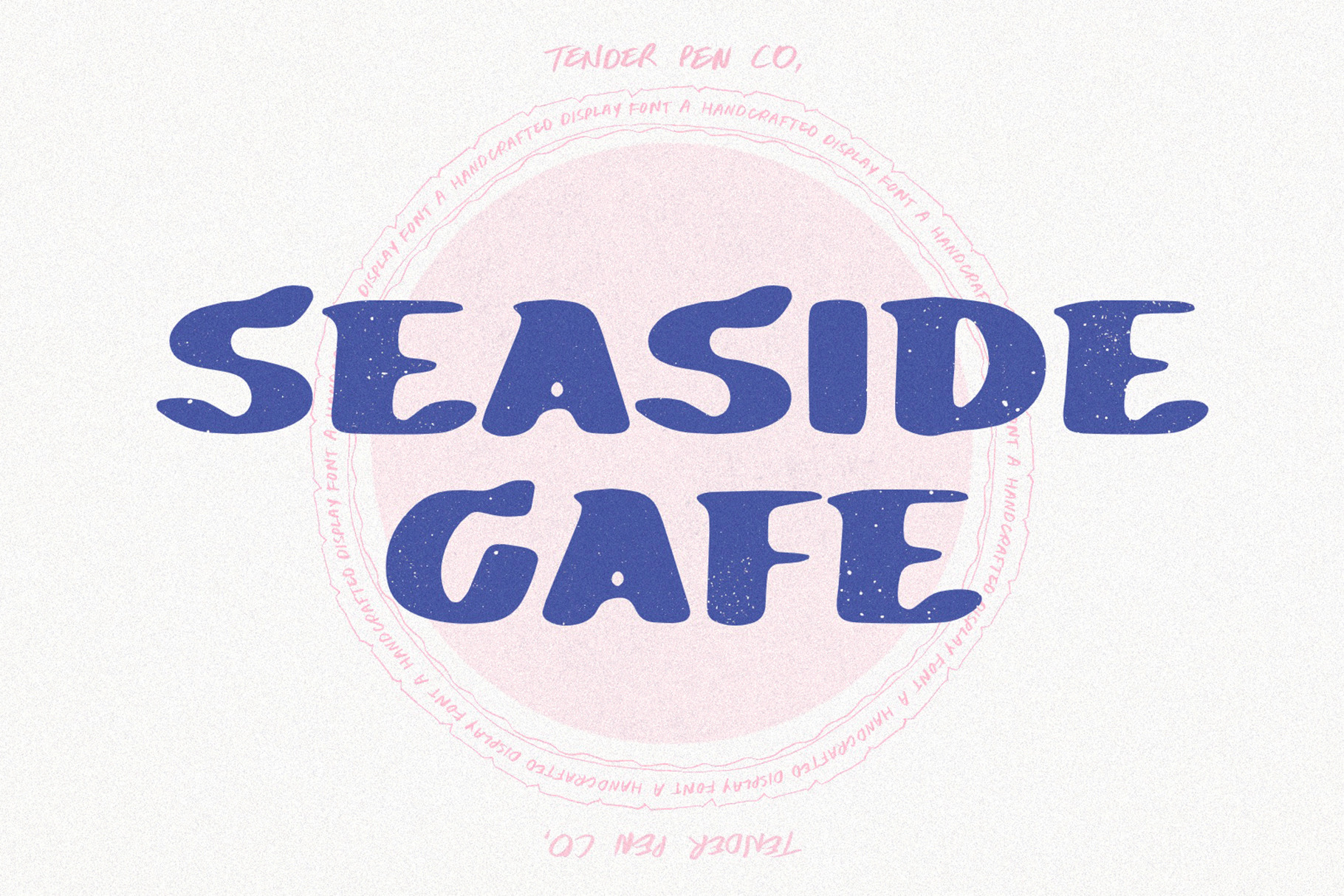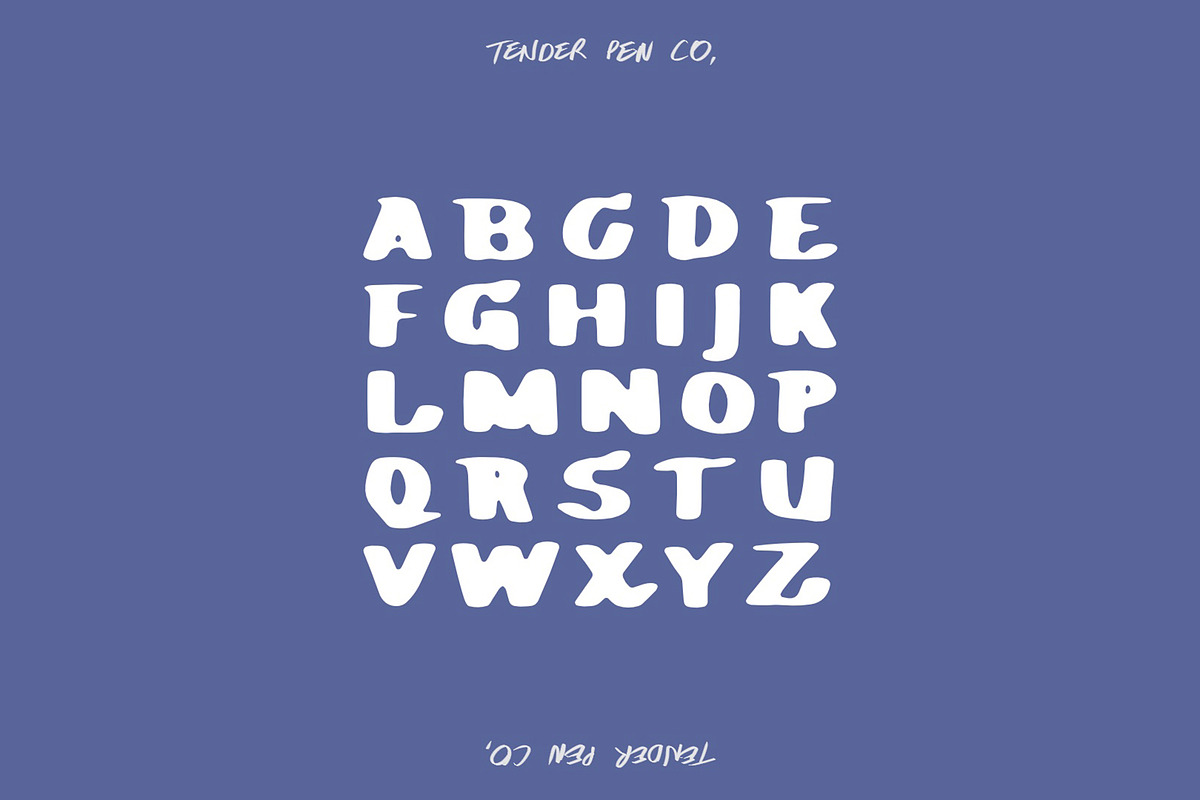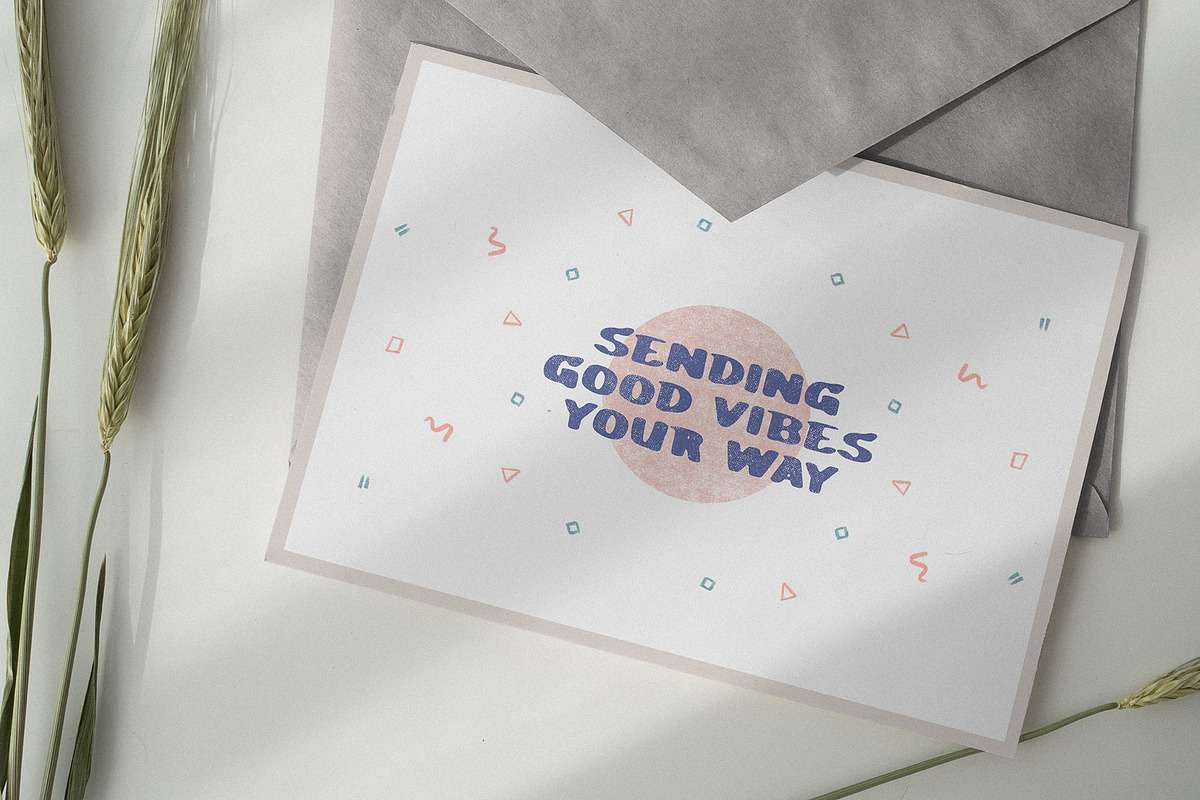
Seaside Cafe | Hand Drawn Font
Seaside Cafe features extra bold and blocky forms with the softness of hand-painted lettering. This display font comes in all caps, and includes numbers & punctuation.